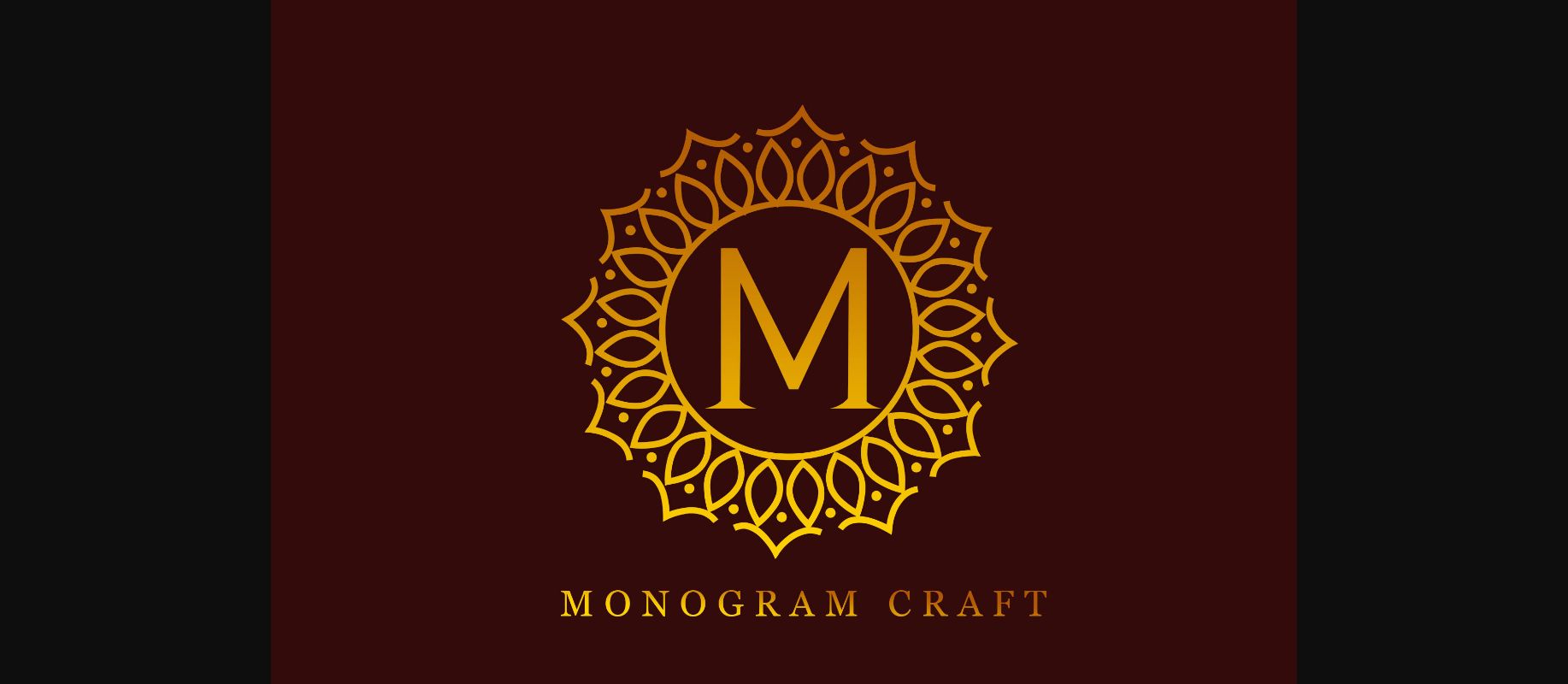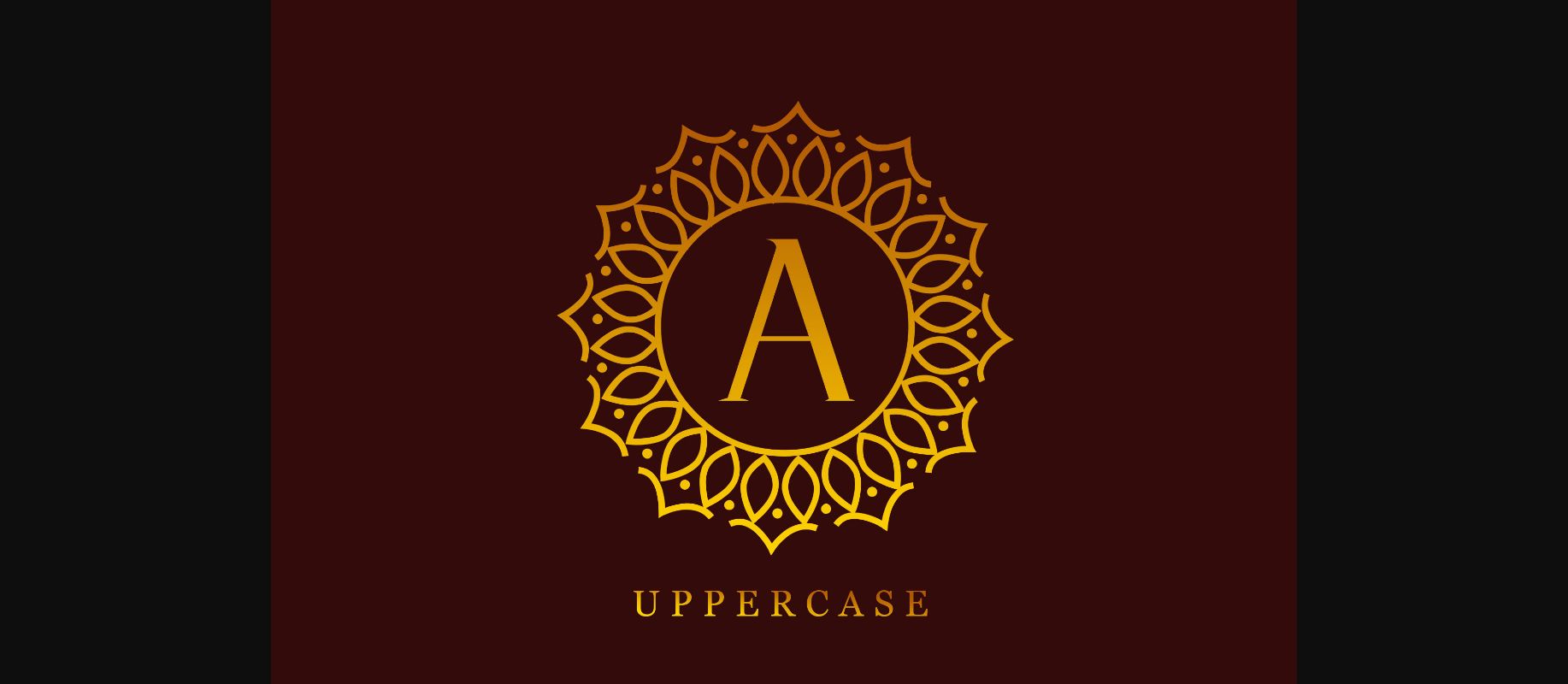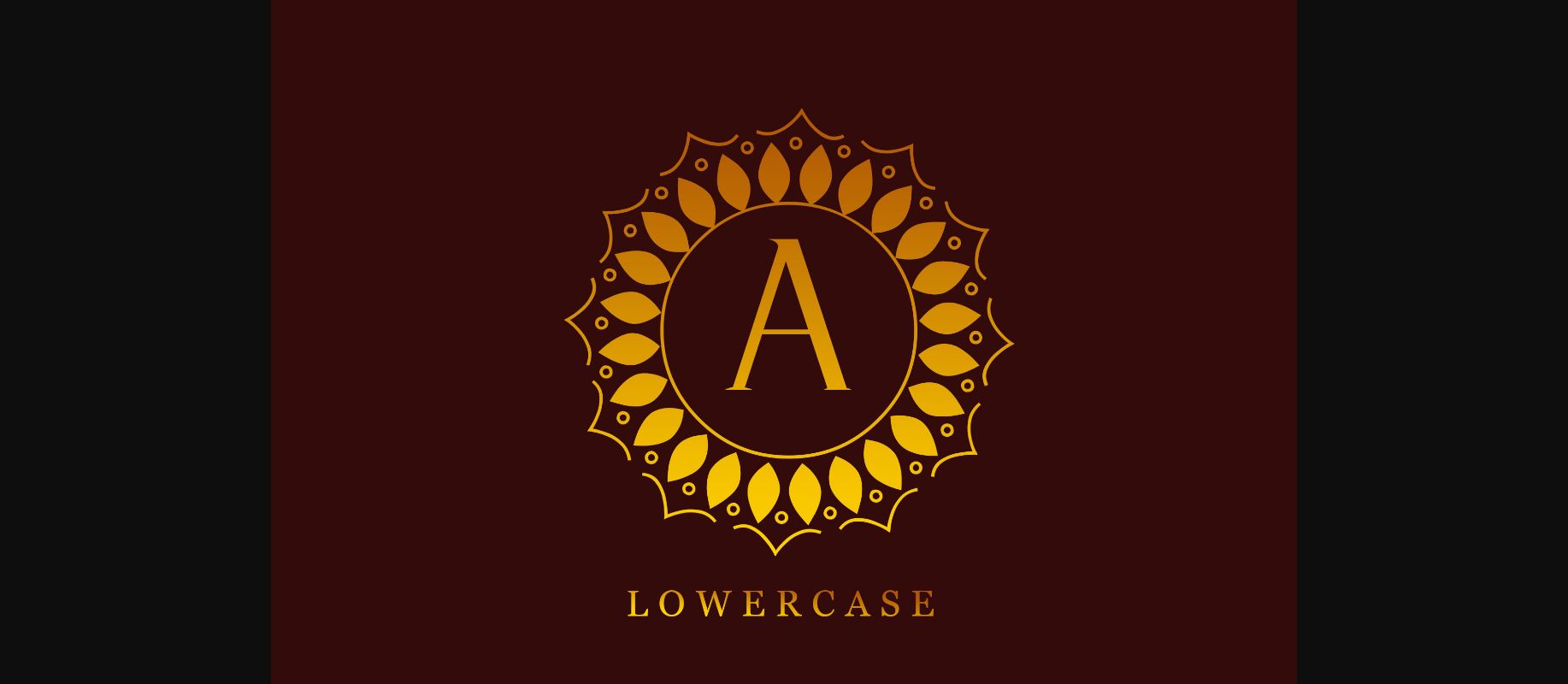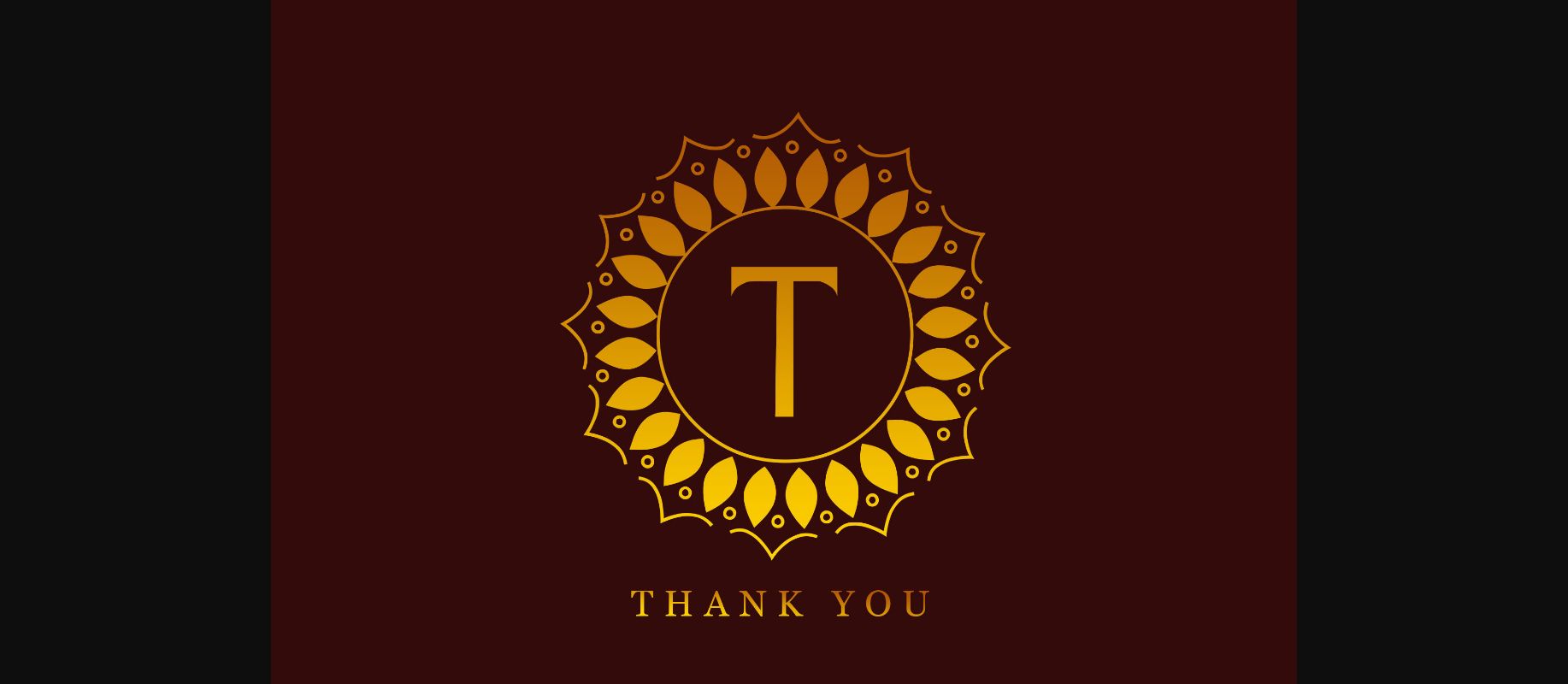
HomeDecorative FontsMonogram Craft Font Decorative Fonts Monogram Craft Font FacebookXPinterestWhatsApp 1 of 6 ... Monogram Craft Font Poster 2... Monogram Craft Font Poster 3... Monogram Craft Font Poster 4... Monogram Craft Font Poster 5... Monogram Craft Font Poster 6... About Monogram Craft Font Monogram Craft is a high detailed and interestingly designed decorative font. Whether you’re using it for crafting, digital designing, presentations or greeting cards making, it’s perfect! DOWNLOAD NOW People also explored Hello Homework Font Jacklyn Blands Font Hilstoria Font Beloving Font Remained Font Keswick Clea Font Bustercall Font Sheltone Font 247 0 TagsMonogram Craft Font Previous articleThink Pink FontNext articleBe Breast Beware Font LEAVE A REPLY Cancel reply Comment: Please enter your comment! Name:* Please enter your name here Email:* You have entered an incorrect email address! Please enter your email address here Website: Save my name, email, and website in this browser for the next time I comment. Personal Use Free Pouline Personal Use Free Read more about this font Mallvirra Personal Use Free Read more about this font Starborn Font Personal Use Free Read more about this font Geuli Font Personal Use Free Read more about this font BLOG Using Fonts in Digital Marketing: Tips to Strengthen Your Brand Identity In the realm of digital marketing, every visual element plays a crucial role in shaping a brand's identity, and fonts are no exception. The... Elegant Wedding Invitation Fonts – Handwritten & Script Fonts Top 10 Handwritten Fonts That Elevate Your Designs Exploring Font Trends